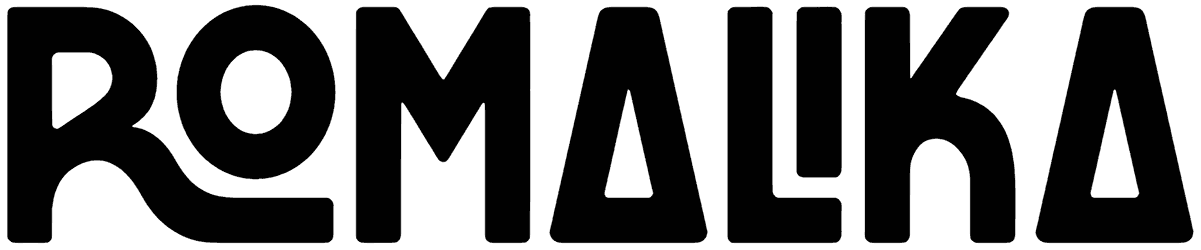
Romalika Font
Let us stop you right there. Your attempt to figure out whether Romalika feels more modern or ancient can go on for a while, so just let it go. Look at the bright side instead. You know, everywhere you put it, this all-caps retro font is gonna match the overall theme of the design, and rather tastefully too.
Modern interior design business logo? Sure thing. Some book titles about Egyptian history? Yeah, that too. See? It’s always ready to handle your projects.